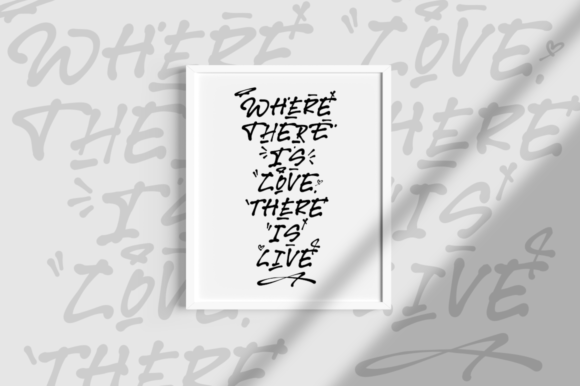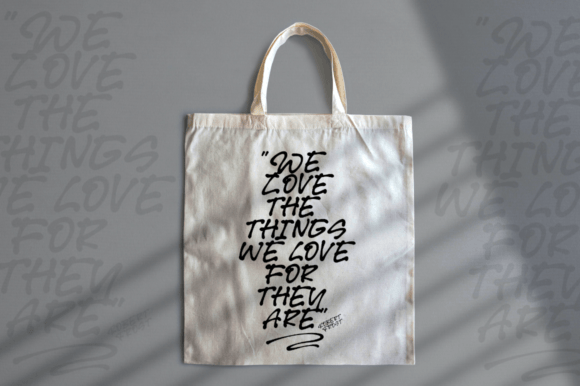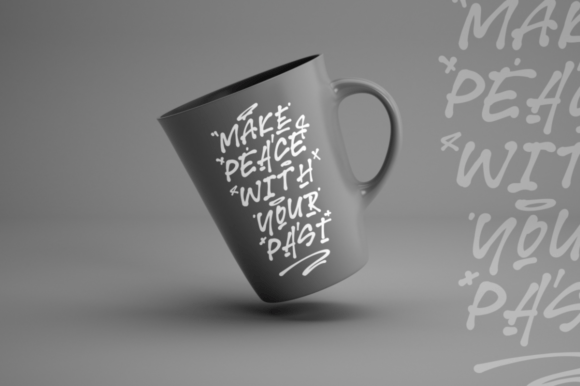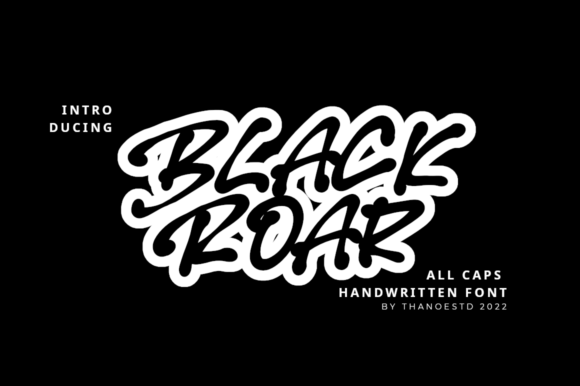
Introduction to Black Roar Font
BlackRoar is an all-caps handwritten graffiti-style display font.
Contemporary and fresh it is perfect for any design you wish to create Add it to your creative projects and make them outstanding.
Key Features of Black Roar Font
Why Choose Black Roar Font?
Black Roar Font offers exceptional quality and versatility, making it a valuable addition to your design toolkit. Whether you’re creating for personal projects or commercial use, Black Roar Font delivers professional results.